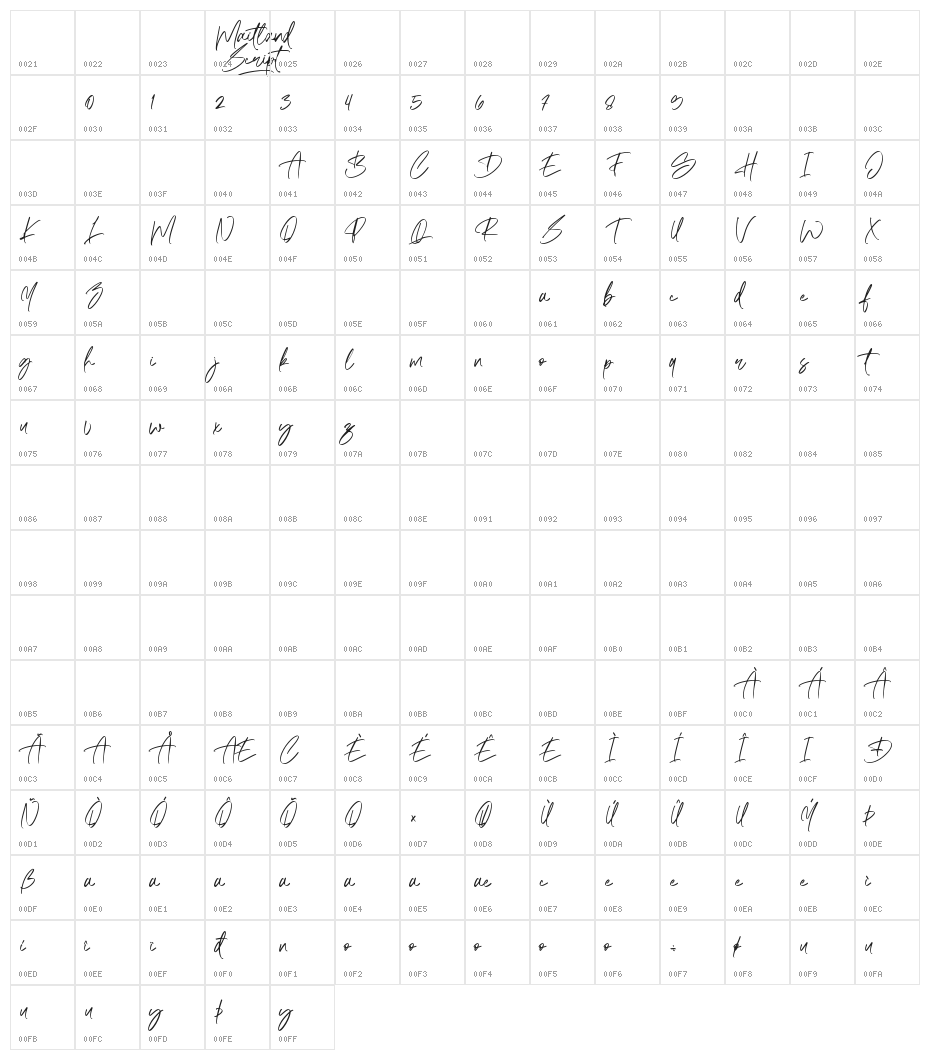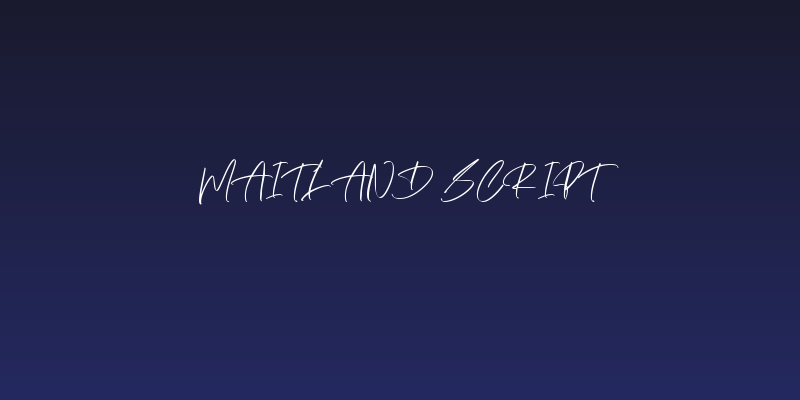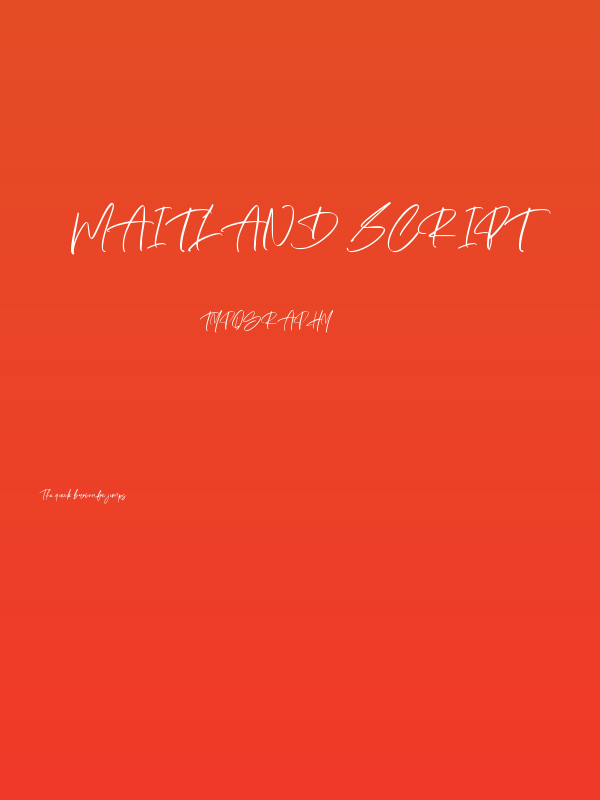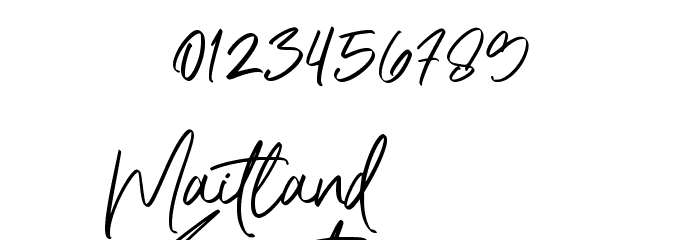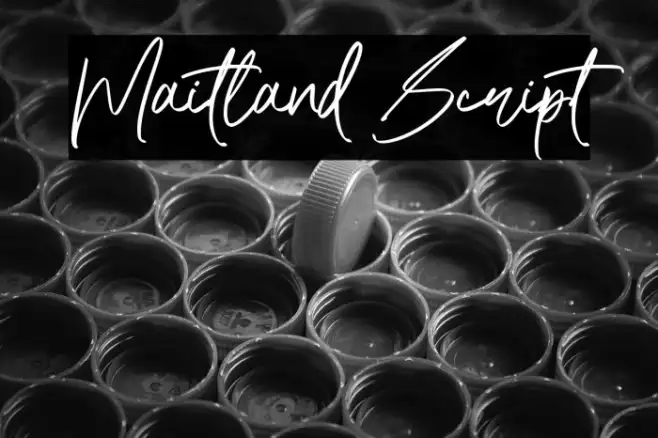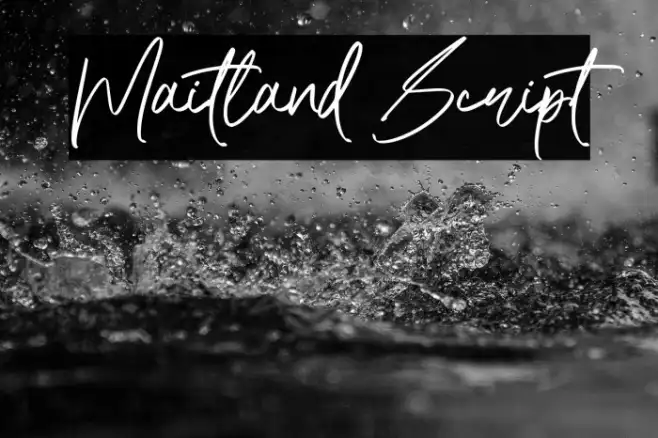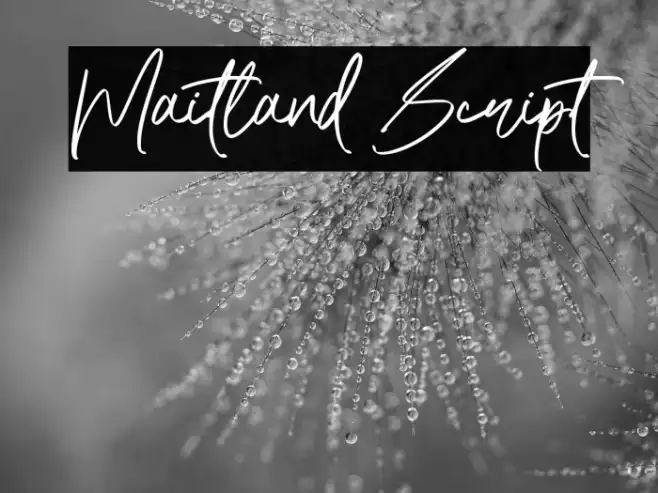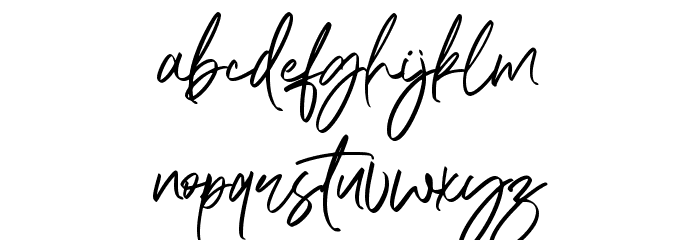
Maitland Script Font
Maitland Script Description
This font exudes a lively and dynamic energy with its fluid, cursive strokes. The characters are elegantly connected, giving it a handwritten feel that is both personal and stylish. The uppercase letters are bold and sweeping, while the lowercase letters maintain a consistent flow with graceful loops and curves. The numbers are clear and maintain the same fluid style, making them easily legible. Special characters are integrated seamlessly, adding versatility to the font. Its overall appearance is modern yet timeless, suitable for a variety of creative applications.